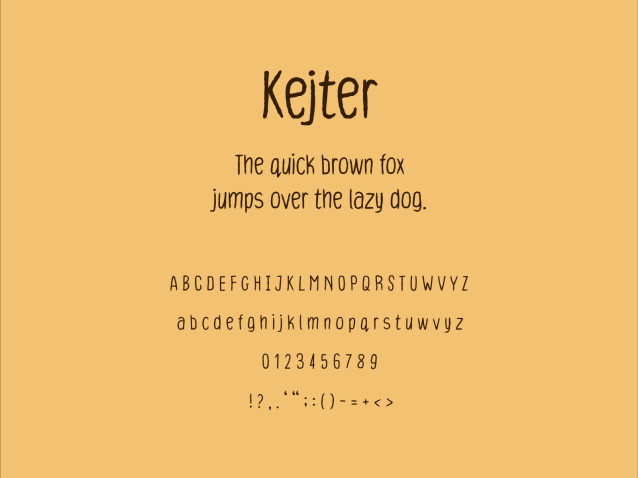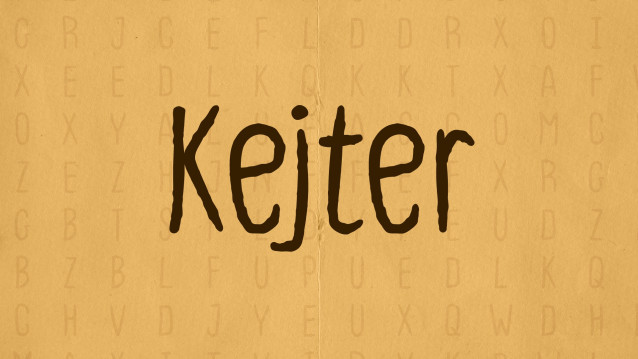
Kejter Script Font is a simple and friendly handwritten font. Its natural and unique style makes it incredibly fitting to a large pool of designs. The only limit is your imagination!
Kejter Script Font
| Designer Name: | Szymon Furjan |